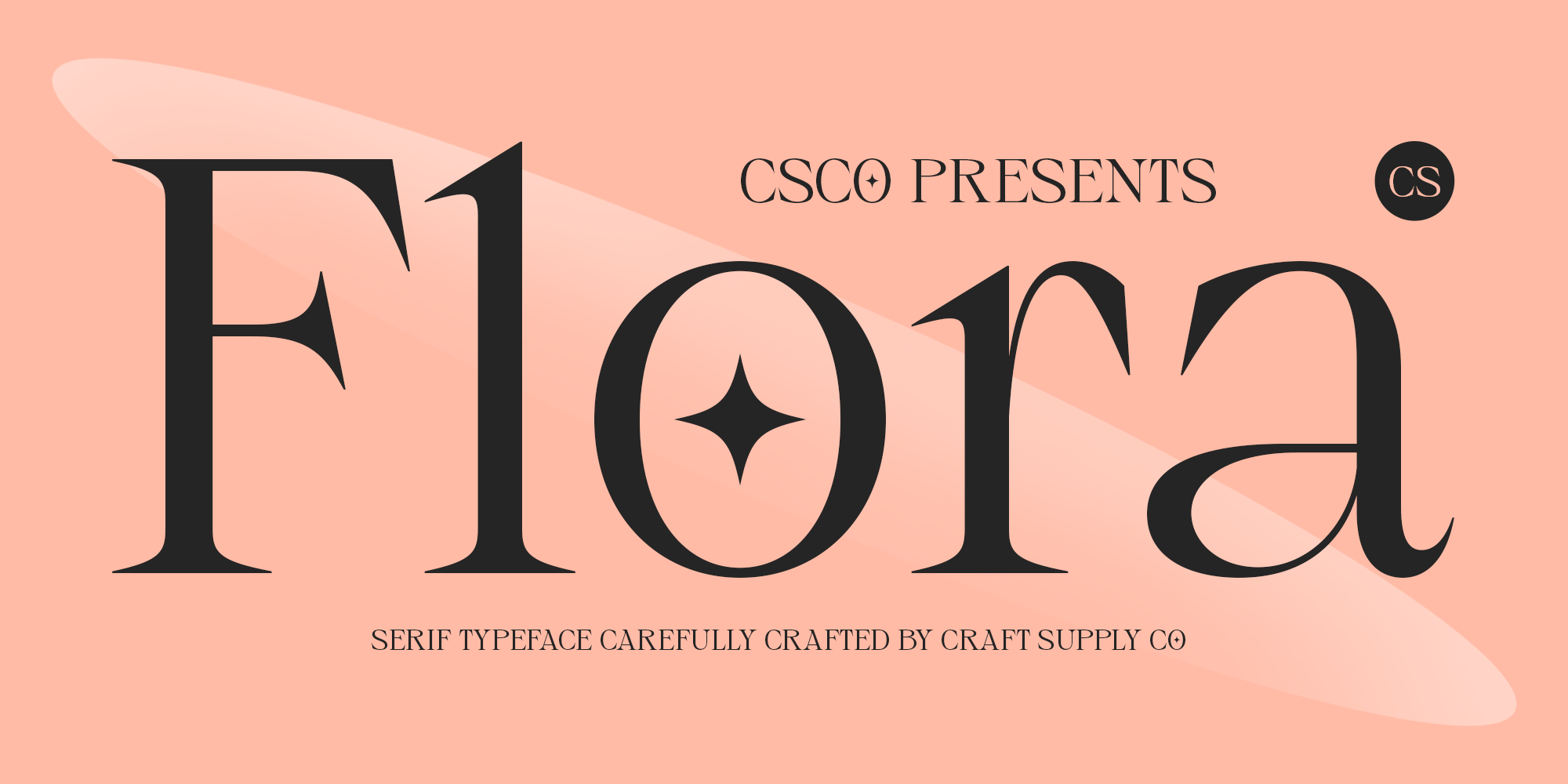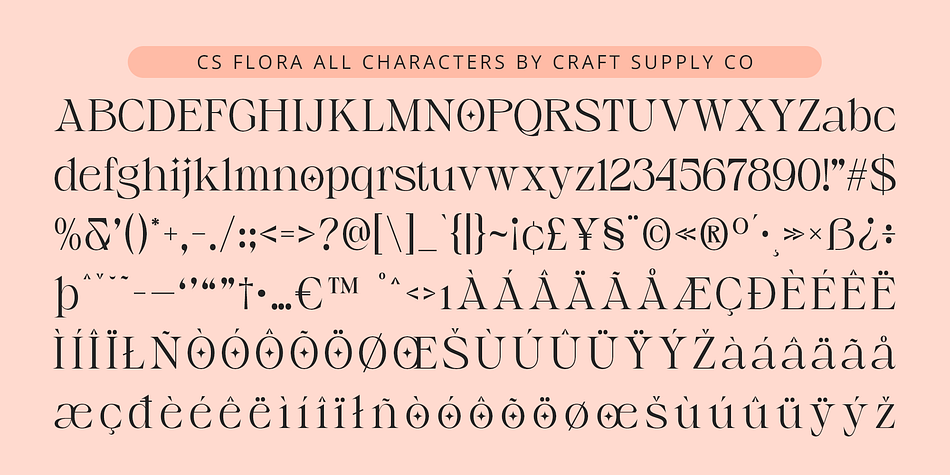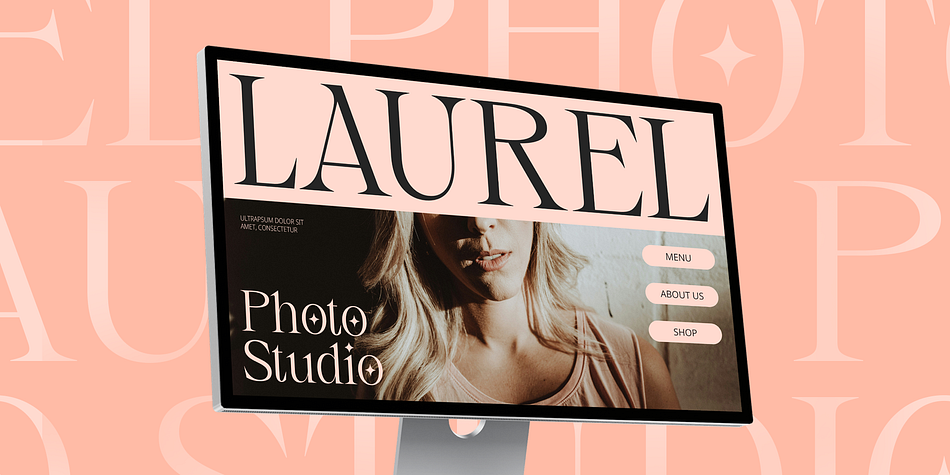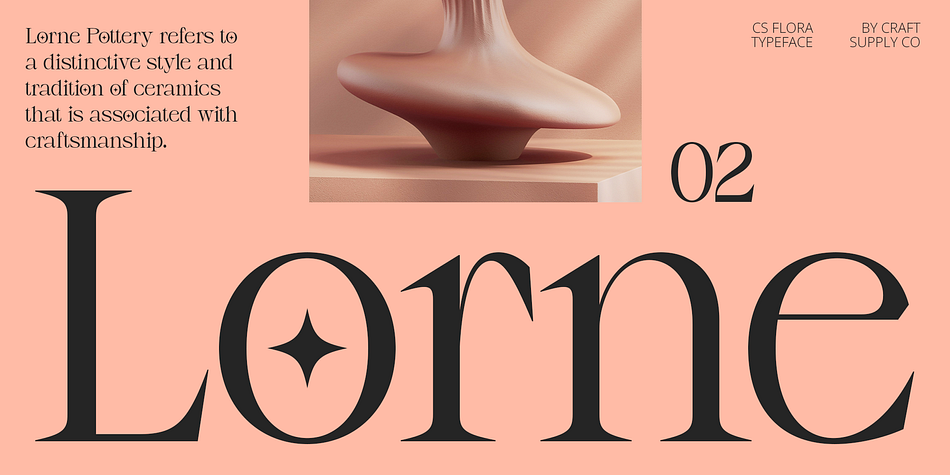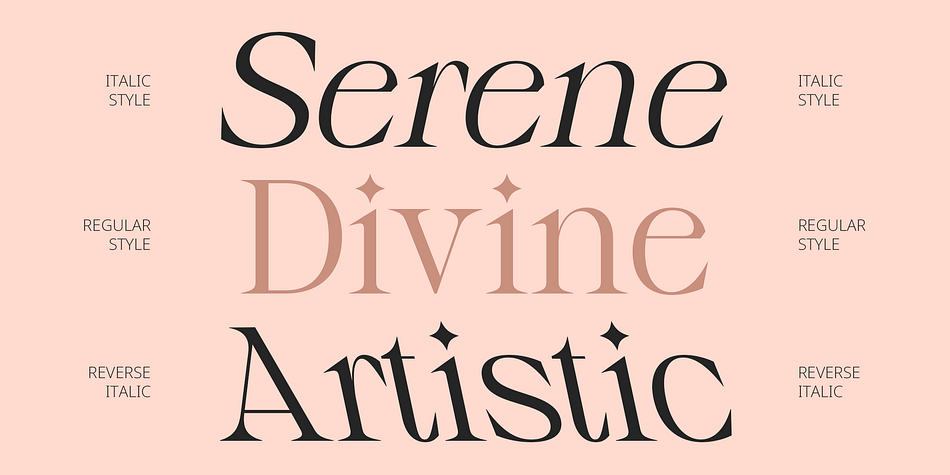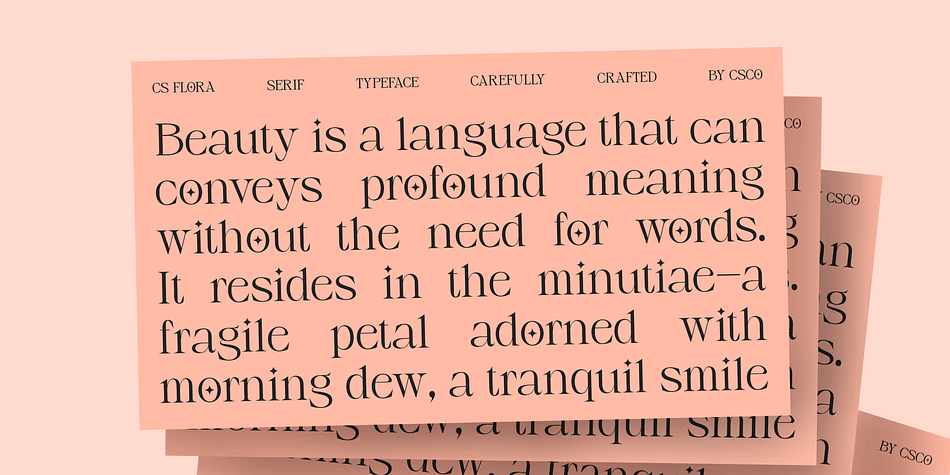
CS Flora
CS Flora is a serif font family. This typeface has three styles and was published by Craft Supply Co.
CS Flora Font: Modern Elegance with Classic Sophistication
Contemporary Shape with Classic Serif Elements
CS Flora is a modern serif font that masterfully combines classic serif elements with a cutting-edge contemporary design. Featuring elegant lines and balanced proportions, this font bridges traditional grace with modern flair, creating a sophisticated and professional appearance ideal for a variety of design contexts.
Graceful and Professional Appearance
CS Flora stands out with its clean, refined design that adds a touch of elegance to any text. The font’s meticulously crafted letterforms and harmonious proportions enhance readability while providing a graceful, polished look. This blend of modernity and classic sophistication makes it perfect for applications where professionalism and style are paramount.
Perfect for Branding and Corporate Use
Whether for high-end branding, corporate documents, or marketing materials, CS Flora excels in adding a layer of sophistication and clarity. Its versatile design ensures that your communications convey a sense of authority and refinement, making it a top choice for projects that require both elegance and functionality.